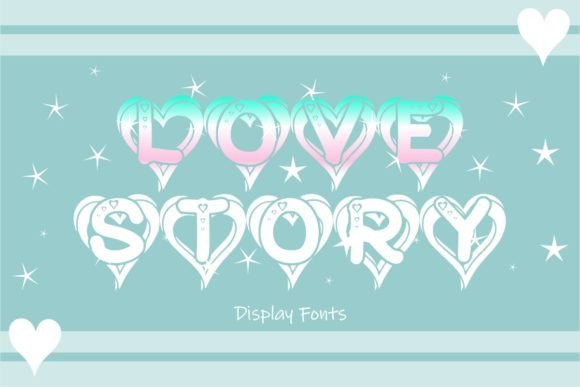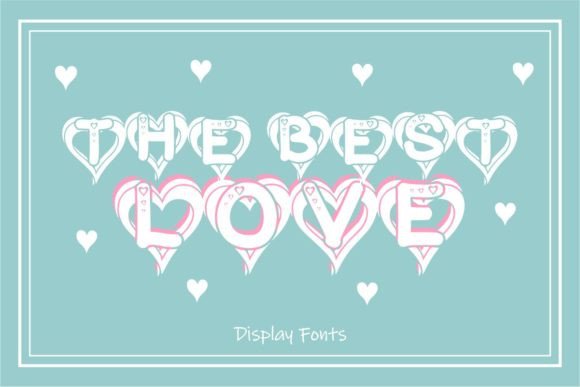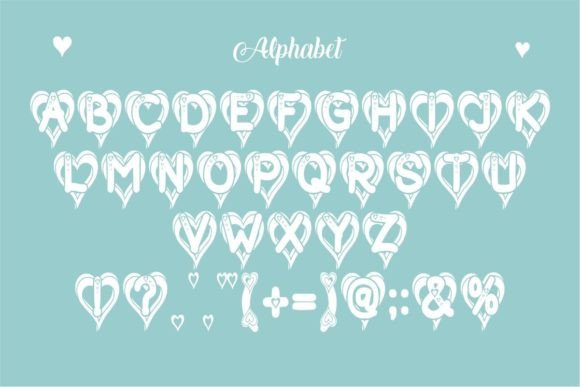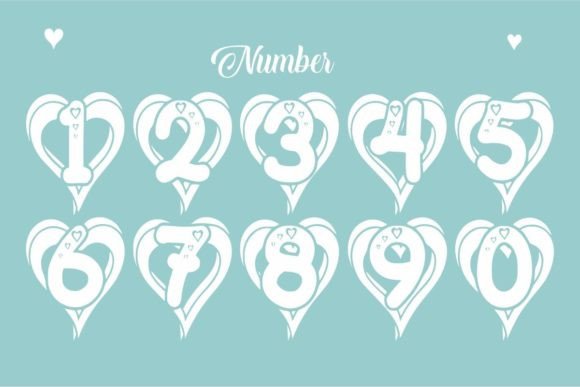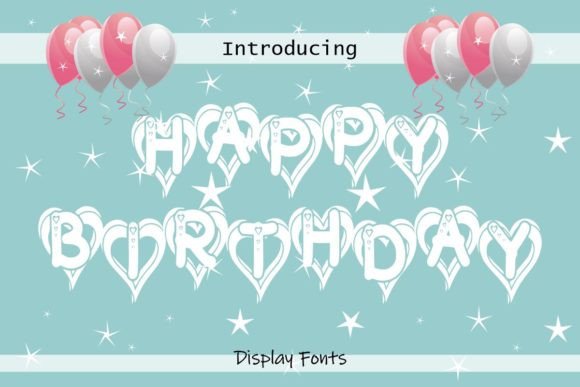
Happy Birthday Font: The Perfect Addition to Your Design Collection
Are you tired of using the same old fonts for your designs? Look no further! Introducing the Happy Birthday font, a cheerful decorative font that will fill your designs with joy and excitement. This delightful font is perfect for adding a personal touch to your creations, whether you’re a designer, crafter, or simply someone who loves to get creative.
What is Happy Birthday Font?
Happy Birthday is a decorative font that is specifically designed to bring a smile to people’s faces. Its playful and cheerful design makes it ideal for use on a variety of projects, from birthday cards and party invitations to social media graphics and marketing materials. With its unique and eye-catching style, this font is sure to make your designs stand out from the crowd.
Uses for Happy Birthday Font
The Happy Birthday font is incredibly versatile and can be used on a wide range of projects, including:
- Covers: Add a pop of personality to your book covers, magazine covers, or any other type of cover design.
- Posters: Create eye-catching posters for events, promotions, or announcements that will grab people’s attention.
- Decor designs: Use the Happy Birthday font to add a touch of whimsy to your decor designs, such as wall art, signs, or other home decor projects.
- Marketing materials: Add a playful touch to your marketing materials, such as brochures, flyers, or business cards.
- Birthday designs: Of course, this font is perfect for birthday designs, such as birthday cards, party invitations, or cake toppers.
- Anything else you need: The Happy Birthday font is a great addition to any design project that needs a bit of personality and flair.
Why Choose Happy Birthday Font?
So why choose the Happy Birthday font for your designs? Here are just a few reasons:
- Unique and eye-catching: This font is sure to make your designs stand out from the crowd with its playful and cheerful design.
- Versatile: This font can be used on a wide range of projects, from digital designs to print materials.
- High-quality: The Happy Birthday font is a high-quality font that is designed to look great on any device or in any design.
Tips for Using Happy Birthday Font
Here are a few tips for using the Happy Birthday font in your designs:
- Use it sparingly: While the Happy Birthday font is playful and cheerful, it can be overwhelming if used too much. Use it sparingly to add a pop of personality to your designs.
- Pair it with other fonts: The Happy Birthday font pairs well with other fonts, such as sans serif fonts or script fonts. Experiment with different pairings to find the one that works best for your design.
- Experiment with colors: The Happy Birthday font looks great in a variety of colors, from bright and bold to pastel and soft. Experiment with different colors to find the one that works best for your design.
In conclusion, the Happy Birthday font is a great addition to any design collection. Its playful and cheerful design makes it perfect for adding a personal touch to your creations. With its versatility, ease of use, and high-quality design, this font is sure to become a favorite among designers and crafters. So why wait? Download the Happy Birthday font today and start adding a bit of joy and excitement to your designs!